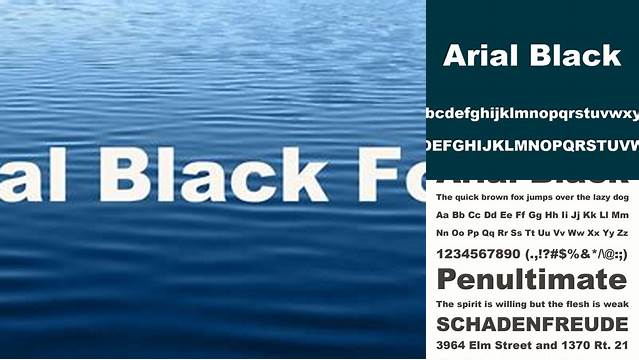
Hey guys! Ever needed a super bold, attention-grabbing font that just screams "look at me"? Well, look no further! We're diving deep into the world of Arial Black font, and the best part? You can get it for free! This guide will walk you through everything: how to snag that free download, how to install it on your computer, and even some awesome ways to use this amazing font. So, buckle up and get ready to amp up your designs! Let's get started with this comprehensive guide to the mighty Arial Black font! We'll explore its history, why it's so popular, and most importantly, how you can add it to your font collection without spending a dime.
H2: Understanding Arial Black: The Bold Statement Font
Alright, let's kick things off by really getting to know Arial Black. Think of it as the super-powered, pumped-up version of the classic Arial font. While Arial is clean and versatile, Arial Black takes it a step further, boasting a significantly heavier weight. This means the strokes of each letter are much thicker, making it ideal for headings, titles, and anything you want to stand out. It's like the font equivalent of wearing a bright, eye-catching outfit – it demands attention! The bold nature of Arial Black makes it incredibly versatile, suitable for various design projects, from website headers and posters to presentations and social media graphics. Its ability to stand out even in a crowded design landscape is a key reason why so many designers and individuals seek out an Arial Black font free download. This guide will assist anyone looking for Arial Black, ensuring a safe and easy download process to get the font installed and ready to use. In this way, you can instantly elevate the visual impact of any text. Because of its robust presence, it's an excellent choice when you need to convey a sense of strength, confidence, and importance. Plus, its clean, sans-serif design ensures it remains readable, even at larger sizes. So, whether you're aiming to create a powerful headline, a striking logo, or simply want to add a touch of boldness to your project, Arial Black is a fantastic choice, and the best part is, you can get your Arial Black font free download and get started right away!
H3: The Distinct Characteristics of Arial Black
So, what exactly makes Arial Black tick? Let's break down its unique characteristics, and this will give you an even better understanding of why it's such a popular font choice, and why you should be excited to find an Arial Black font free download! First and foremost, its most prominent feature is its incredibly heavy weight. As we mentioned, this is the primary reason it grabs attention so effectively. The thick strokes create a strong visual impact, ensuring that your text is easily seen and read, even from a distance or at smaller sizes. The design is based on the same principles as the regular Arial font, offering a clean and modern appearance. This means that while it is bold, it doesn't feel cluttered or overly stylized. This gives Arial Black a sense of sophistication and versatility, making it suitable for both professional and creative projects. Another key characteristic is its excellent readability. Despite its boldness, Arial Black remains remarkably clear and easy to understand. This is thanks to its sans-serif design, which means it lacks the small decorative strokes (serifs) found on some other fonts. This simplicity contributes to its legibility, ensuring your message is conveyed effectively. Lastly, it offers great versatility. You can use it in various design scenarios. It’s perfect for headlines and subheadings, and it’s great for display text, logos, and branding materials. Having access to an Arial Black font free download opens up a world of creative possibilities! With Arial Black, you're not just choosing a font; you're choosing a statement. Its boldness and clarity make it an excellent choice for any project requiring a strong visual impact.